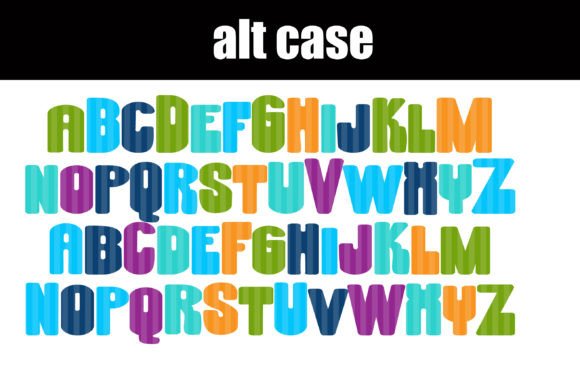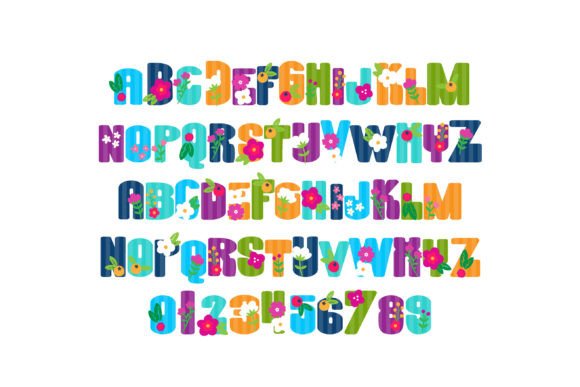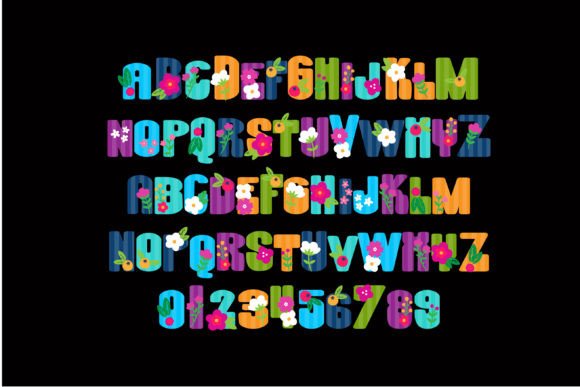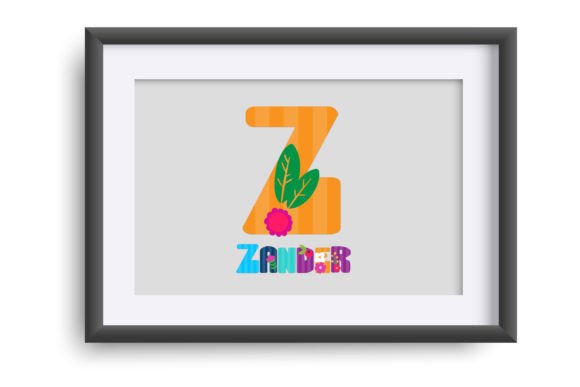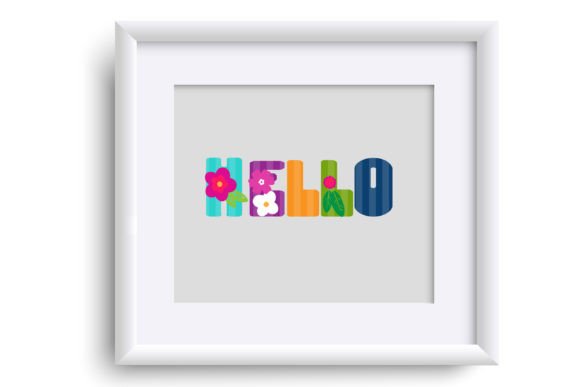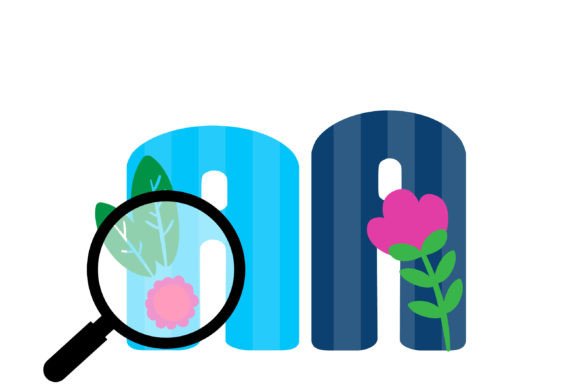
Introducing the Floral Mixer Font: A Vibrant and Versatile Design Element
Are you looking for a way to add a touch of personality to your designs? Look no further than the Floral Mixer Font, a full-color font that features fun florals on a chunky, striped, brightly-colored font. This exciting design element is perfect for designers and crafters who want to create unique and eye-catching projects.
What is the Floral Mixer Font?
The Floral Mixer Font is an OpenType full-color (SVG) font that can be installed like any normal .otf font. It features a chunky, striped font with fun florals in a range of bright, bold colors. The font also includes an alt case with additional colors that can be accessed through your system or Silhouette’s glyph map.
The Benefits of Full-Color SVG Fonts
Full-color SVG fonts like the Floral Mixer Font offer a range of benefits for designers and crafters. Some of the advantages of using full-color SVG fonts include:
- Added visual interest: Full-color SVG fonts can add a pop of color and visual interest to your designs.
- Increased creativity: With a range of colors and styles to choose from, full-color SVG fonts can help inspire your creativity and take your designs to the next level.
- Easy to use: Full-color SVG fonts are easy to install and use, making it simple to add a touch of personality to your designs.
Using the Floral Mixer Font in Your Designs
The Floral Mixer Font is a versatile design element that can be used in a variety of projects. Some ideas for using the font include:
- Creating custom logos and branding materials
- Designing greeting cards and invitations
- Adding a touch of personality to your social media graphics
- Creating unique and eye-catching craft projects, such as vinyl decals and iron-on designs
Tips and Tricks for Getting the Most Out of the Floral Mixer Font
To get the most out of the Floral Mixer Font, here are a few tips and tricks to keep in mind:
- Experiment with different colors and styles: The Floral Mixer Font offers a range of colors and styles to choose from, so don’t be afraid to experiment and try out different combinations.
- Use it in combination with other design elements: The Floral Mixer Font can be used in combination with other design elements, such as shapes and graphics, to create unique and eye-catching designs.
- Take advantage of the alt case: The alt case for the Floral Mixer Font includes additional colors that can be accessed through your system or Silhouette’s glyph map.
The Floral Mixer Font is a fun and versatile design element that can add a touch of personality to your designs. With its range of bright, bold colors and easy-to-use format, it’s perfect for designers and crafters who want to create unique and eye-catching projects. Whether you’re creating custom logos and branding materials, designing greeting cards and invitations, or adding a touch of personality to your social media graphics, the Floral Mixer Font is a great choice.